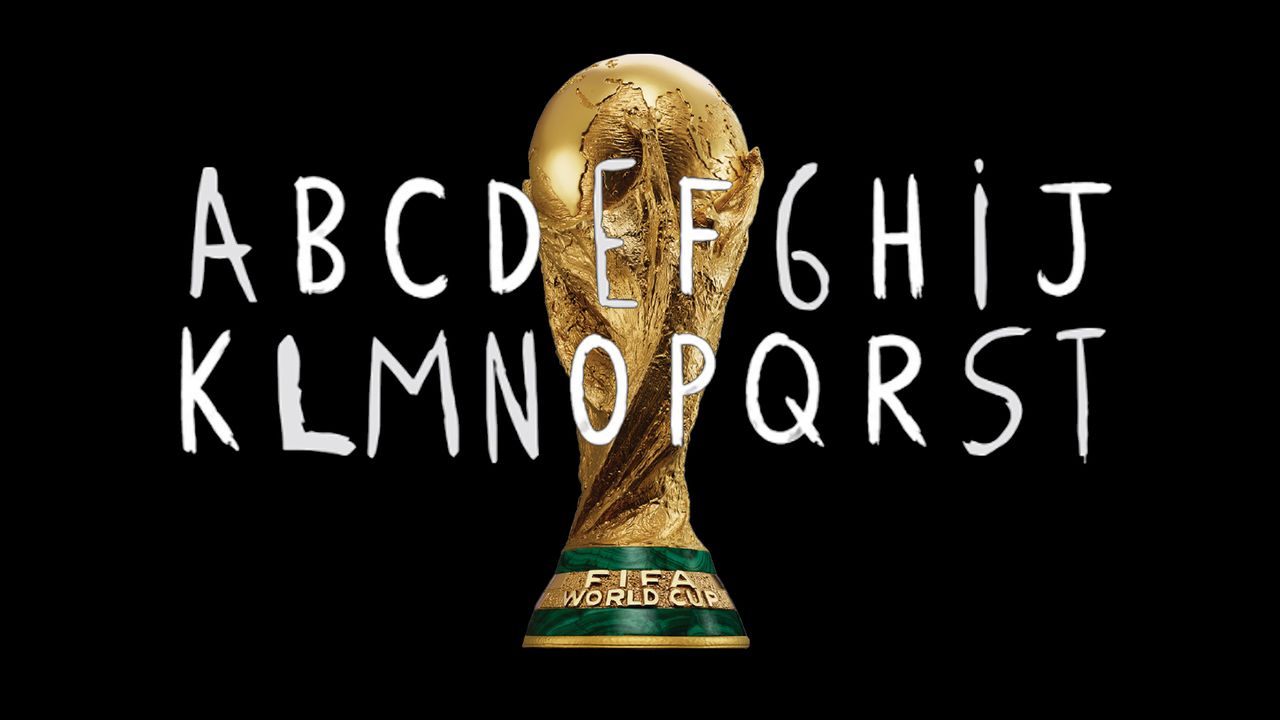
While some cling to the idea that the World Cup is all about the football, even FIFA seems to be unsure these days. This year's final was deemed to require a half-time show featuring Madonna, Shakira and Justin Bieber.
One of the most controversial non-sporting incidents in the tournament came at the end of the Argentina vs England semifinal. Argentine players were photographed celebrating their victory in a historically tense confrontation while holding up a banner thrown by a fan. 'Las Malvinas son Argentinas', it read, in a reference to Argentina's claim to the Falkland Islands.
While FIFA announced that it would investigate whether its rules against political slogans were breached, an artist got to work making the message instantly reproducible. They've turned the letters from the banner into a font design.
Malvinas Sans is already going viral in Argentina. The artist @juanma_artwork digitalised the forms of the banner's hand-painted lettering using Calligraphr to create a set of letters, numbers and additional symbols
In the post's caption, the artist frames the font as "typeface born from the forbidden”.
He says the message is "about memory, identity, and keeping alive the discussion over a nation's sovereignty. It's not about celebrating an absurd war. It reminds us that history is still unresolved. Because banning a phrase doesn't end a debate. Sometimes, it makes it even more necessary”.
Argentina might not have shone in their defeat to Spain in the final on Sunday, but their world cup campaign has turned a hotel bed sheet smuggled into Atlanta Stadium in a fan's trousers into a design icon.
"The people who wrote on that bedsheet in their hotel were unintentionally creating a national typeface born of the soul, of the impossible, of disobedience, passion and memory," one person writes in the comments.